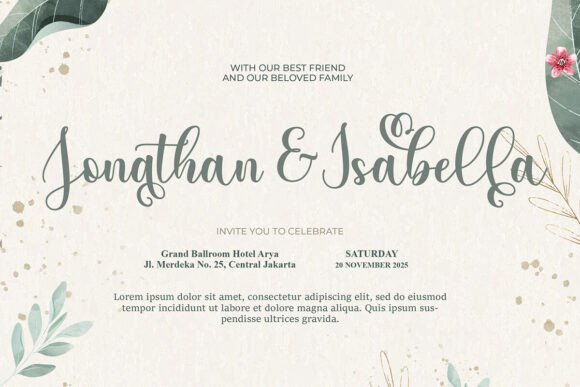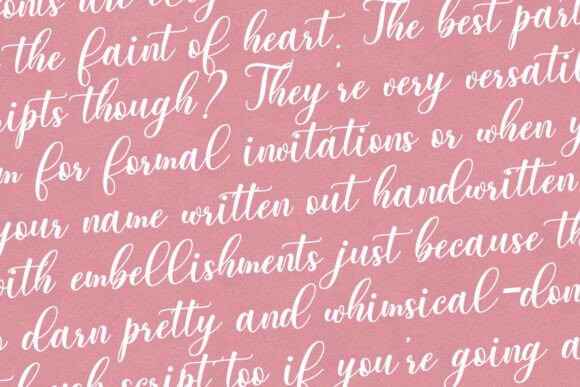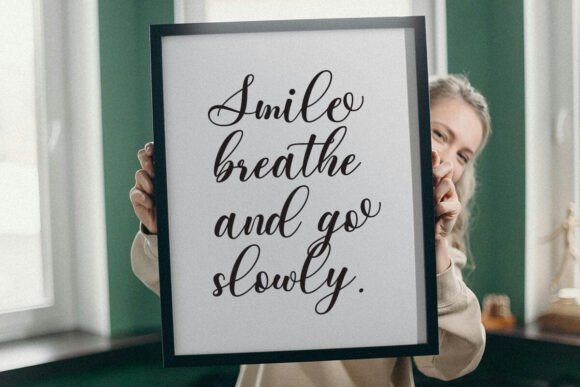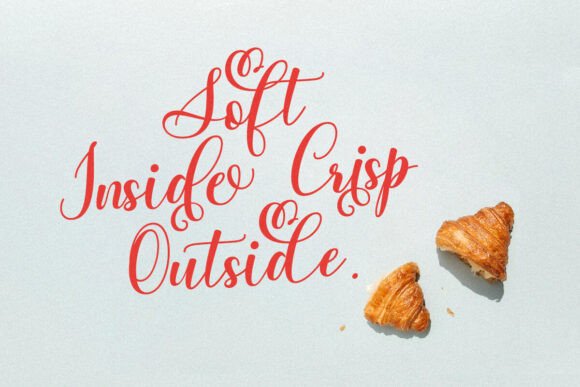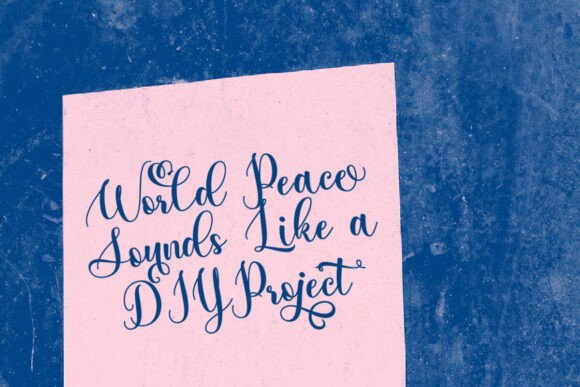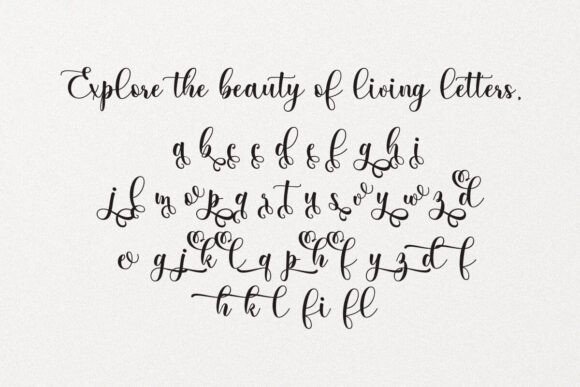
Introduction to Prophets Font
Prophets is a beautifully sweet and elegantly cursive handwritten font, designed to bring charm and sophistication to any project.
This gentle and flowing typeface enhances the visual appeal of your designs, making them look both graceful and inviting Whether youโre working on branding, logos, wedding invitations, greeting cards, fashion lookbooks, or marketing promotions, Prophets adds a delightful balance of romance and joy.
Prophets Font offers exceptional quality and versatility, making it a valuable addition to your design toolkit. Whether you’re creating for personal projects or commercial use, Prophets Font delivers professional results.